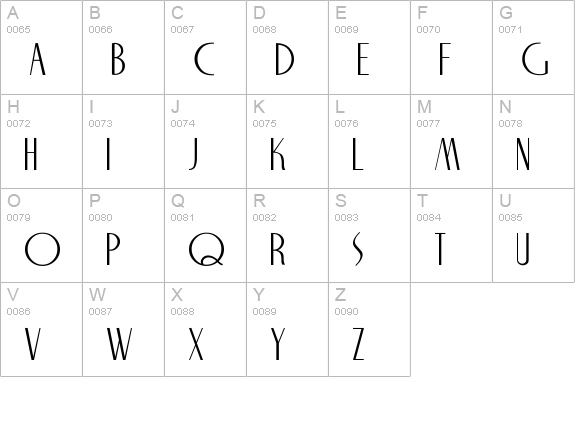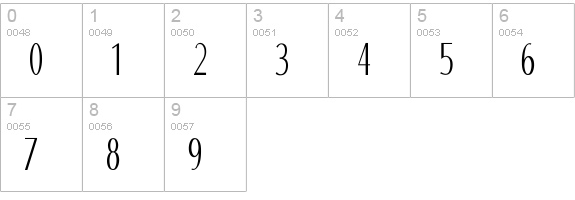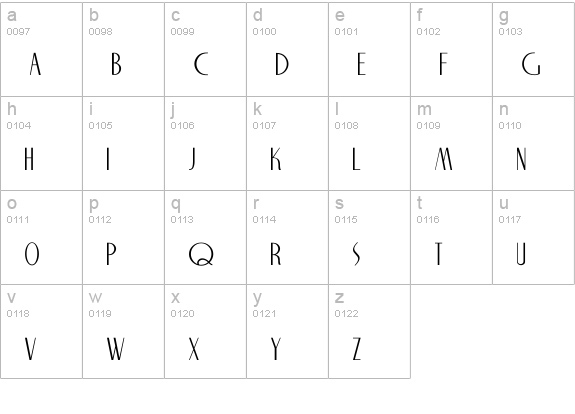
NiteClub Normal Font Details
NiteClub Normal is the standard, neutral variant in the NiteClub typeface family \xE2\x80\x94 well suited to general body text, paragraphs, and standard typographic work.
NiteClub Normal font is a sleek and stylish typeface that exudes an air of sophistication and elegance. With its clean lines and modern design, this font is perfect for creating eye-catching headlines, striking logos, and captivating designs. Featuring a balanced combination of bold and thin strokes, NiteClub Normal font strikes the perfect balance between professionalism and creativity. Its smooth curves and refined letterforms make it a versatile choice for a wide range of design projects. One of the best things about NiteClub Normal font is that it is freely available to download at FontsMarket.com. This means that you can easily access and use this stunning font without any hassle or cost. Whether you are a graphic designer, a web developer, or simply someone who appreciates beautiful typography, NiteClub Normal font is a must-have in your font collection. With its wide range of characters, including uppercase and lowercase letters, numbers, and punctuation marks, NiteClub Normal font offers endless possibilities for creative expression. Whether you're designing a sleek website, a high-end fashion magazine, or a luxurious branding project, this font will elevate your work and make it truly stand out. NiteClub Normal font is the perfect choice for those who want to make a bold statement with their design. Its elegant and refined aesthetic will instantly catch the viewer's attention and leave a lasting impression. Download NiteClub Normal font today from FontsMarket.com and unleash your creativity without any constraints.